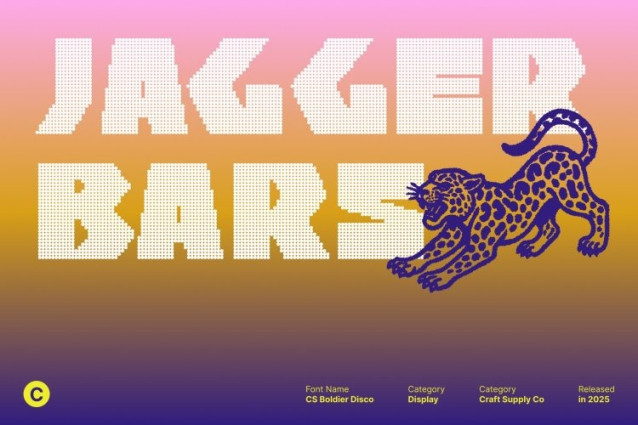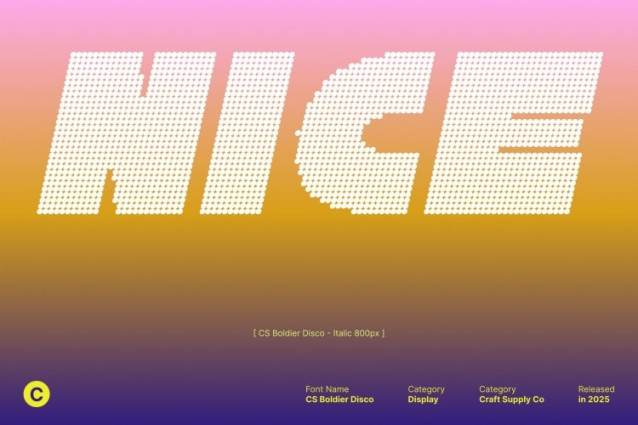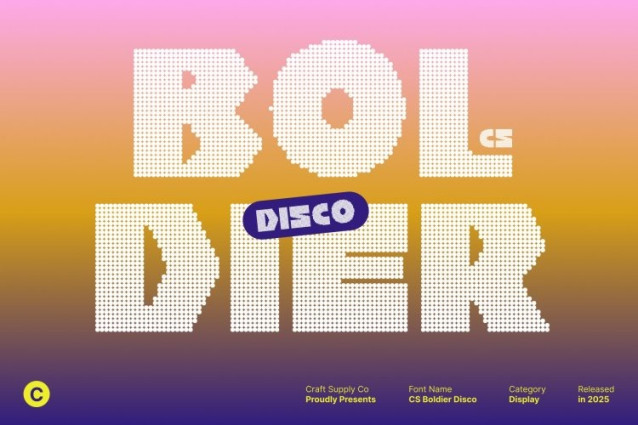
CS Boldier Disco Font
CS Boldier Disco Font This font stands out with its unique and eye-catching letterforms display. The bold structure gives it strong visual presence, while its unusual shapes add a modern and friendly character that instantly draws attention. Each letter feels lively and expressive, making it perfect for designs that aim to shine.
Flashy Disco Style for High-Energy Designs
Infused with a dazzling disco effect, brings sparkle, shine, and movement into your typography. Its glittery vibe makes every word pop, creating a fun, party-ready atmosphere that elevates your design’s energy and excitement.
Perfect for Parties, Events, and Display Needs
Designed for maximum visibility, this font is ideal for event posters, party invitations, music promotions, and festive graphics. Its bold weight and flamboyant style ensure that your titles and headlines steal the spotlight with ease.
Versatile for Modern and Playful Applications
Beyond party themes, works beautifully in branding, social media, packaging, and any project that requires a fun and contemporary feel. Its combination of boldness, friendliness, and glittery flair makes it a go-to choice for designers looking to create standout visuals with personality and charm.